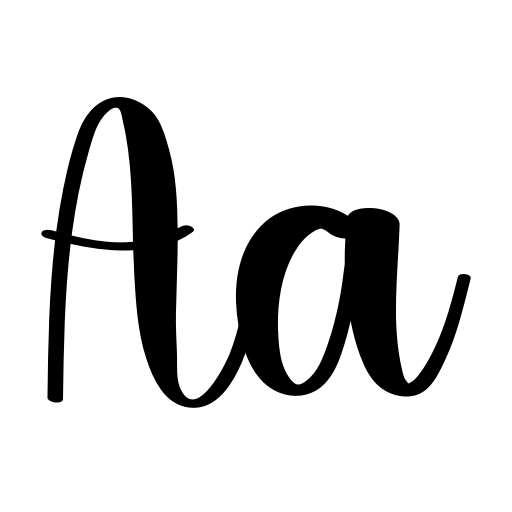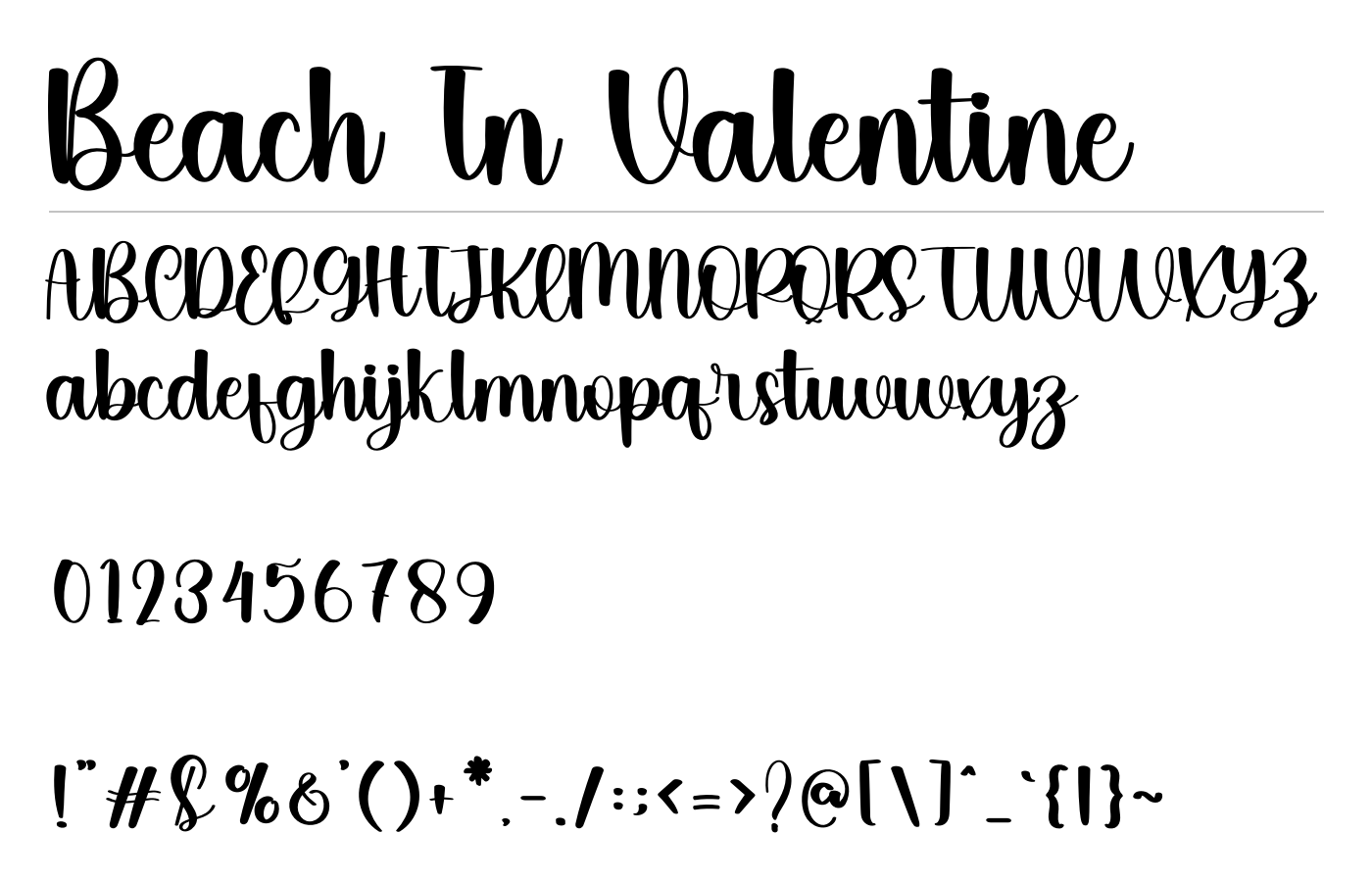
Beach In Valentine is a lively and playful script font featuring rounded, flowing letterforms with a bold weight and moderate contrast. Its handwritten style brings a warm, casual feel, making it perfect for charming branding, invitations, and creative headlines that want to convey friendliness and approachability. This font works best in decorative contexts where a personal, joyful touch is desired.
Beach In Valentine Font
About Beach In Valentine Font